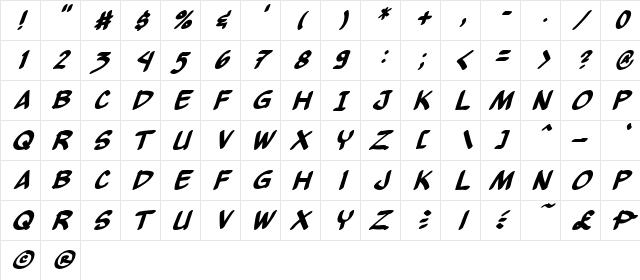
Yew Basturd Italic Font Preview
Yew Basturd Italic
Design Context for Yew Basturd Typeface
Yew Basturd is a composed and adaptable typeface that performs quietly and consistently across a wide range of design contexts. The dynamic lean of this cut emphasises speed and emphasis in any layout.